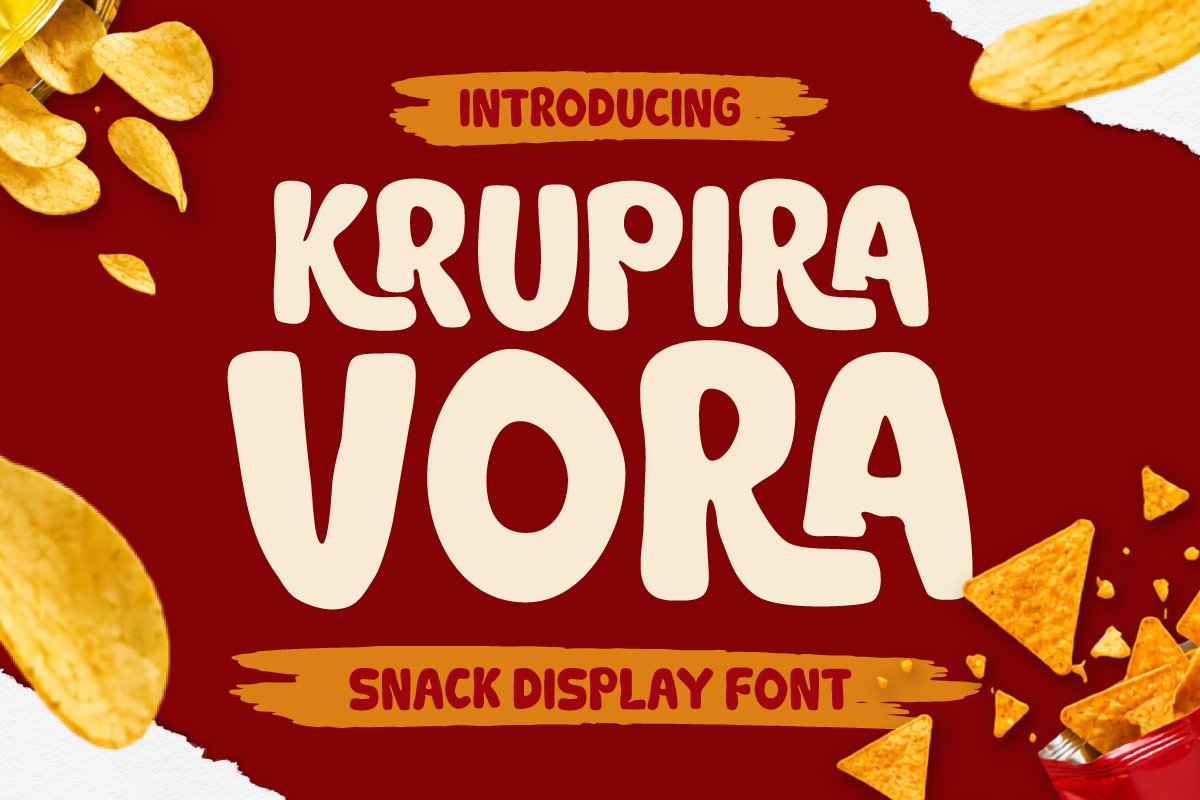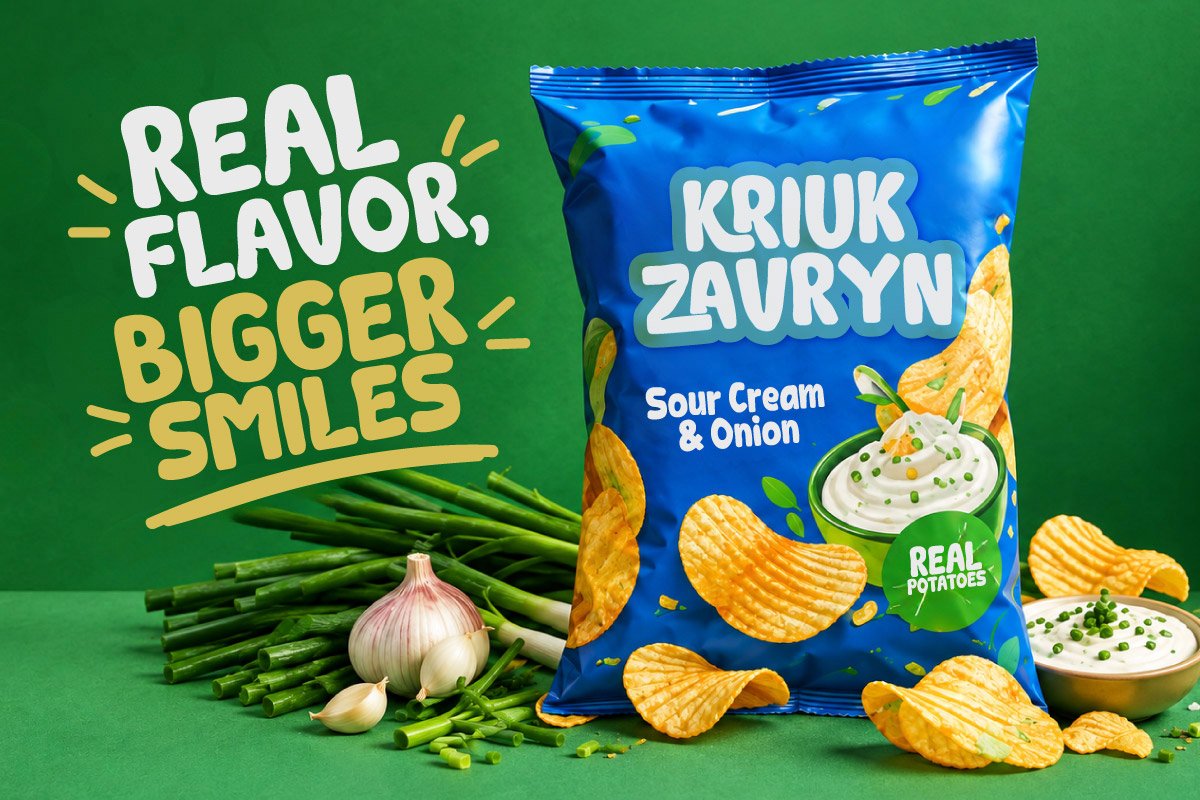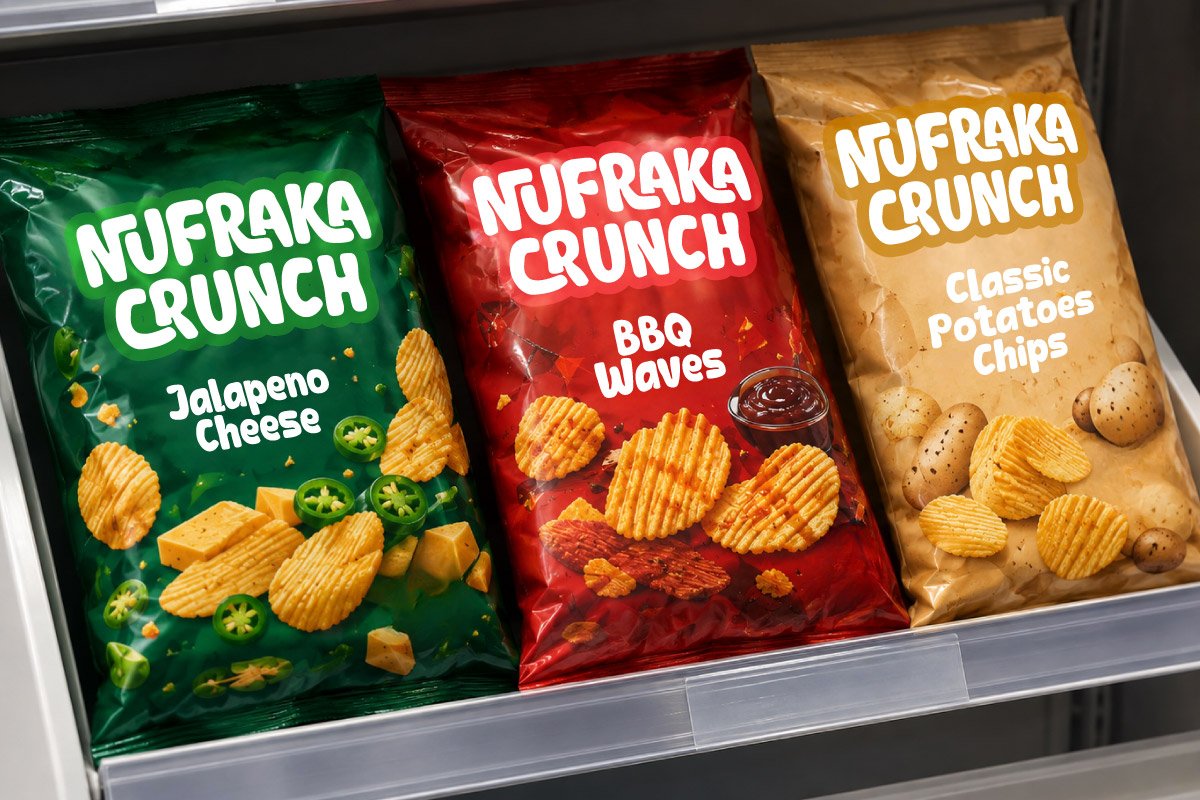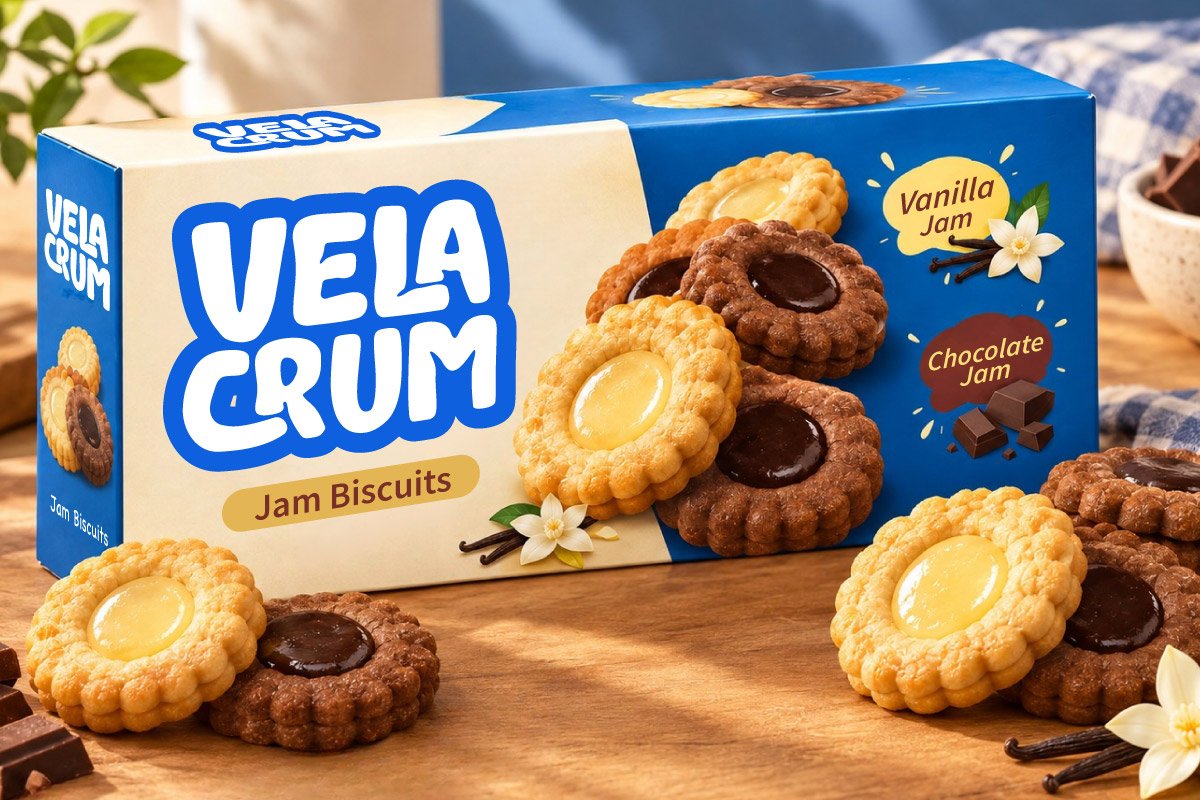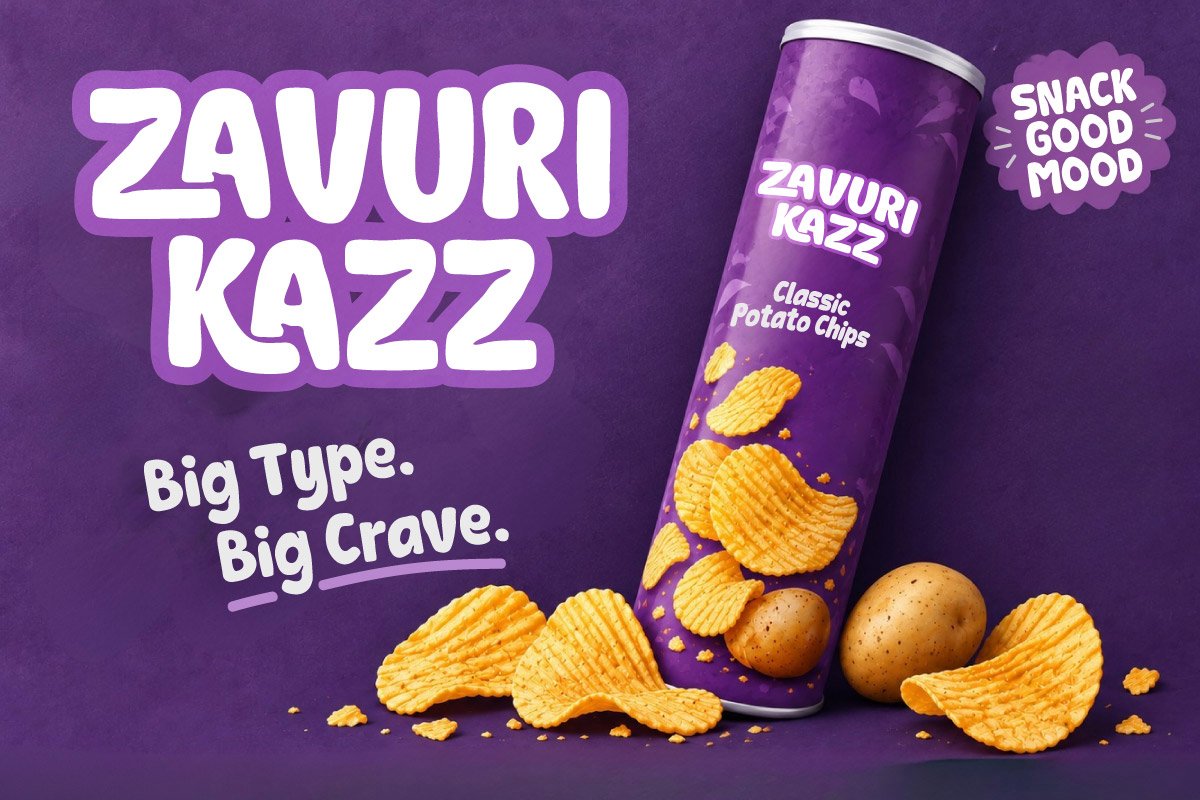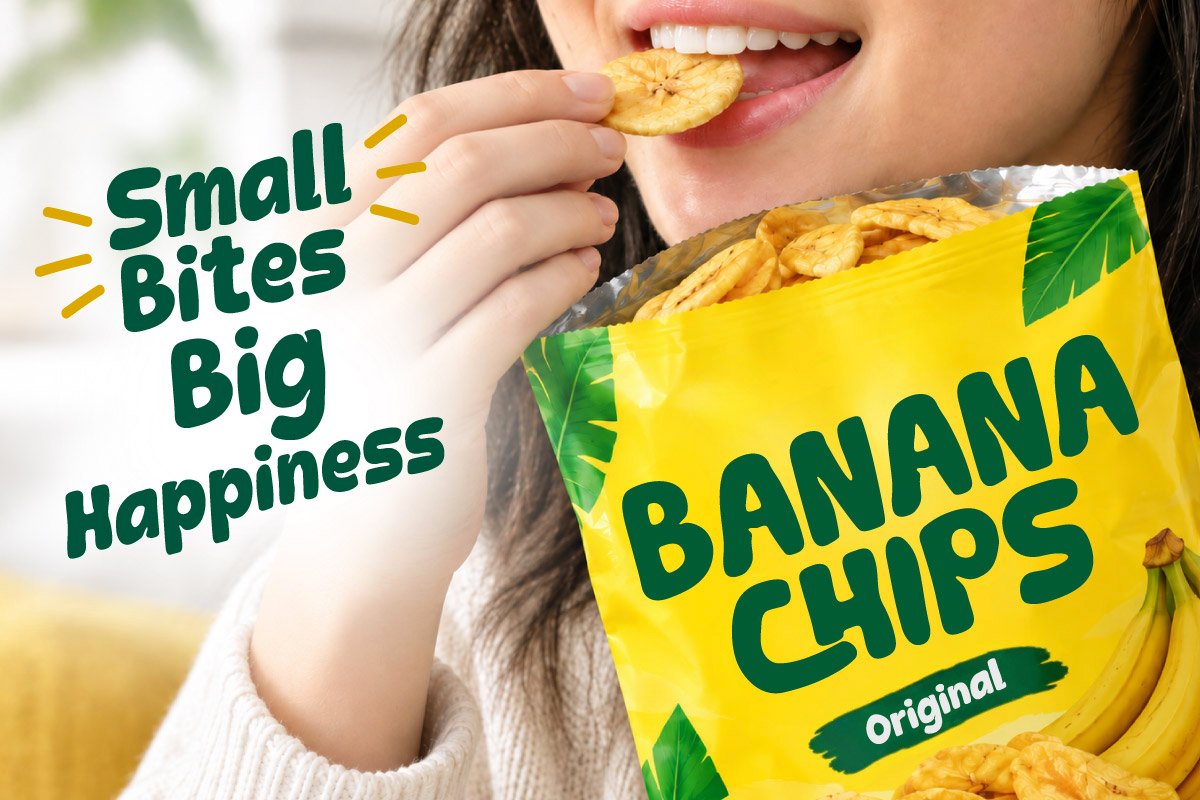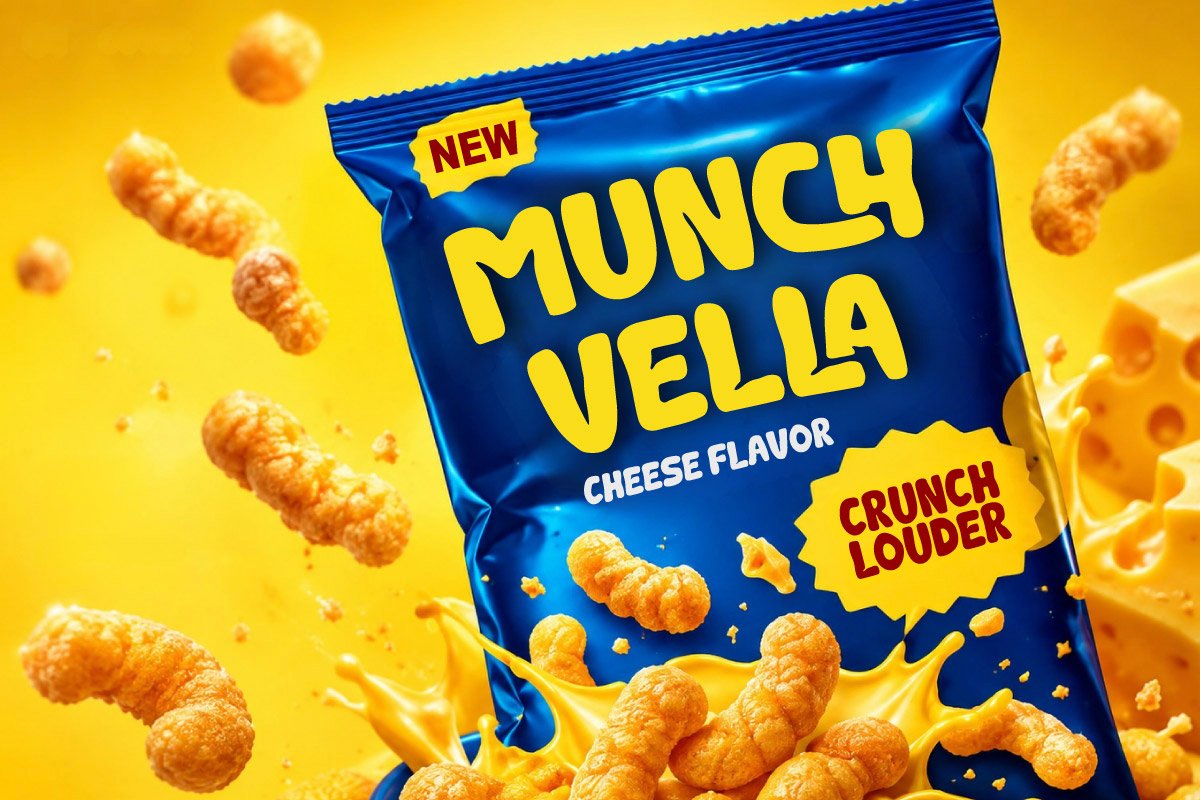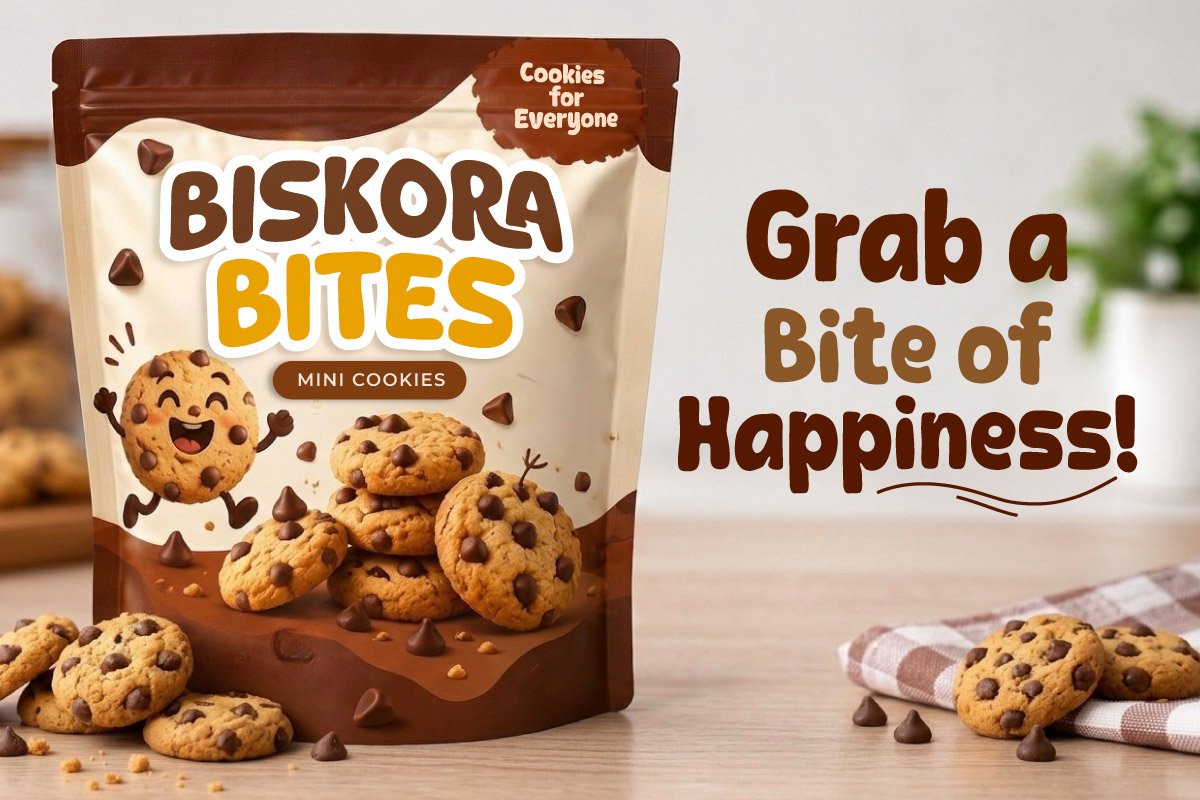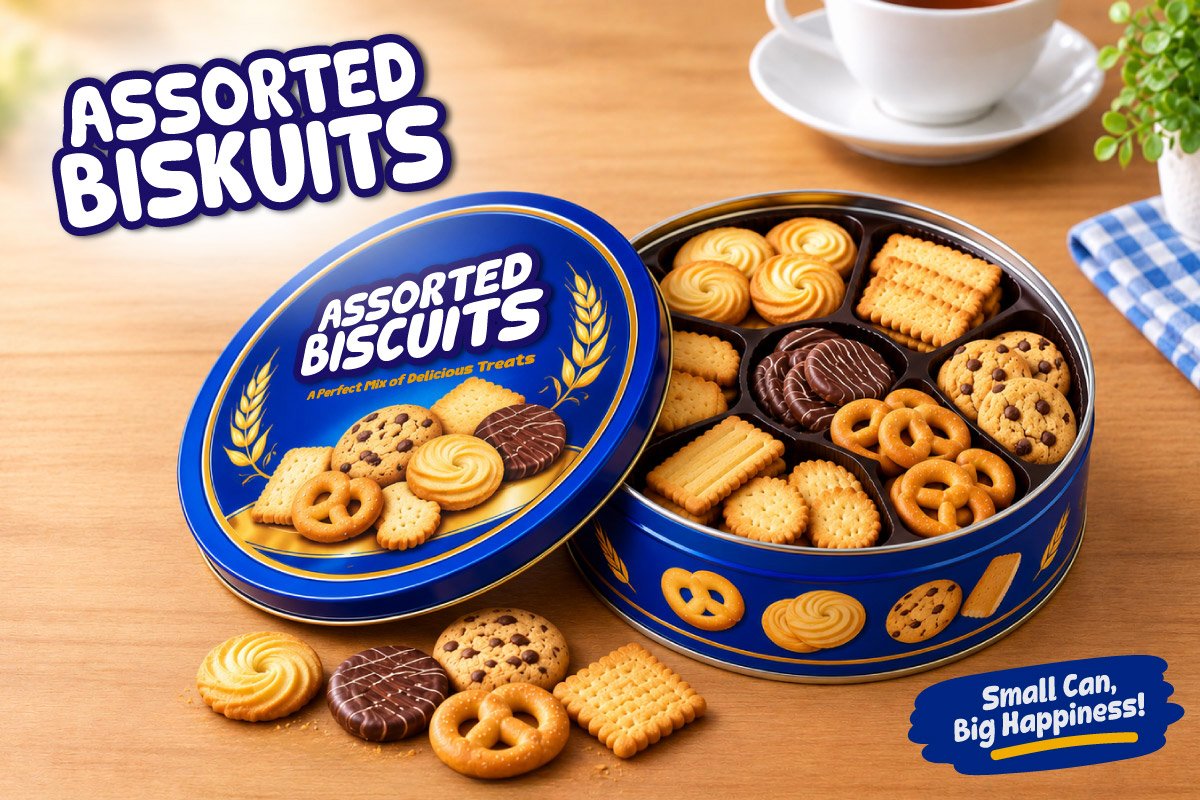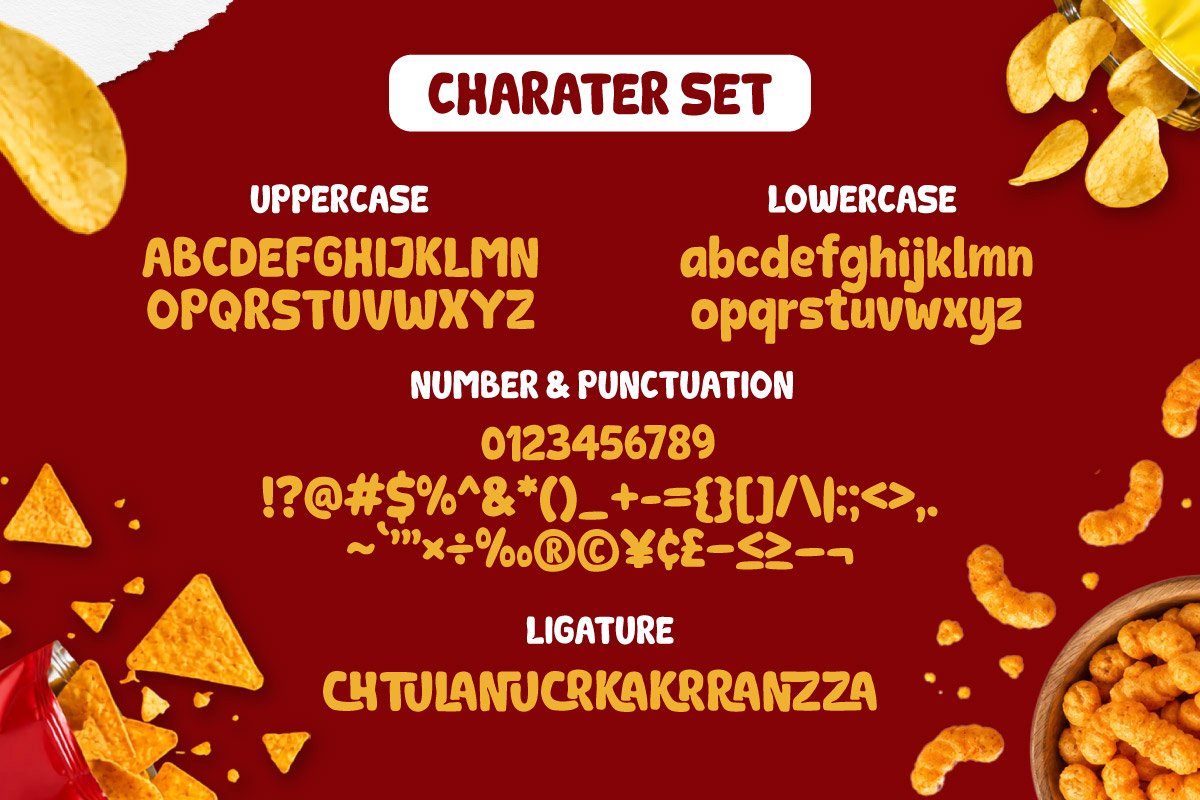
- Krupira Vora – Snack Display Font
Krupira Vora is a bold, assertive display font designed specifically for snack packaging, fast-moving consumer goods (FMCG), and dynamic retail advertising. With its sturdy letterforms and friendly, organic curves, the typeface delivers an appetizing visual appeal that instantly grabs attention amidst crowded retail shelves.
Optimized for maximum commercial impact, Krupira Vora excels across various media—from foil snack wrappers, biscuit boxes, and potato chip tubes to pastry bags, supermarket banners, and retail displays. Its bold weight and high visibility ensure that brand names, flavor descriptors, and key slogans remain sharp and legible from any distance.
Featuring a comprehensive set of uppercase and lowercase characters, numerals, punctuation, and a collection of ligatures, Krupira Vora offers complete creative flexibility. Transform your food packaging and retail branding with a bold typographic solution designed to whet the appetite.